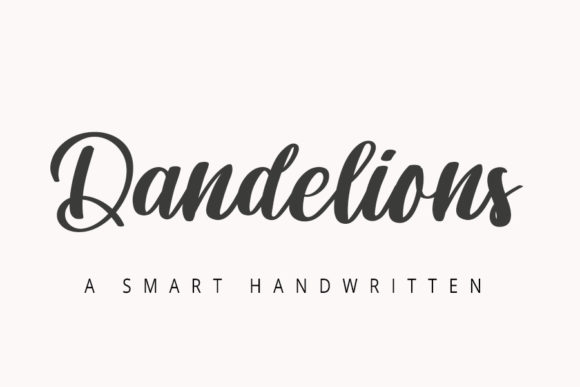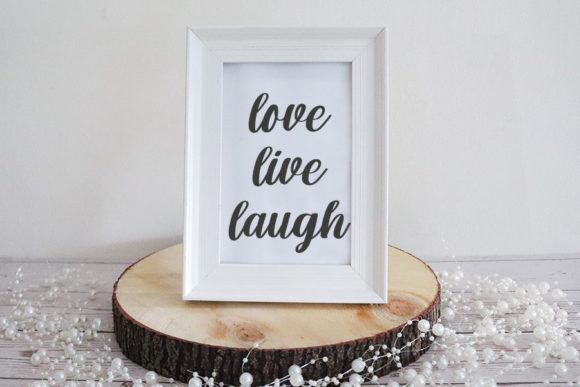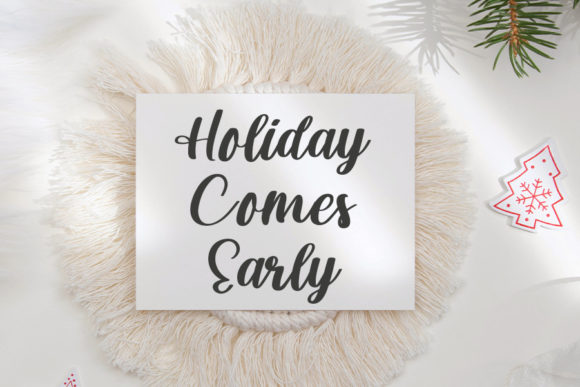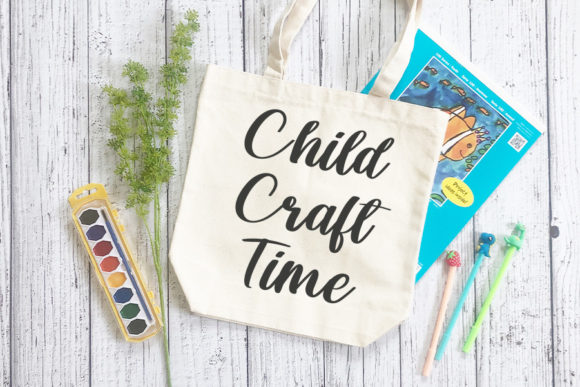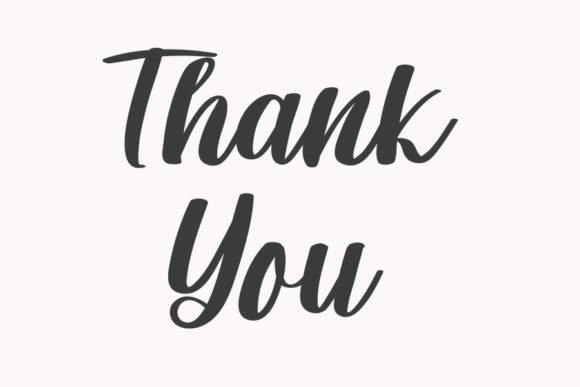
About Dandelions Font
Dandelions feels equally charming and elegant. It looks stunning on wedding invitations, thank you cards, quotes, greeting cards, logos, business cards and every other design which needs a handwritten touch.